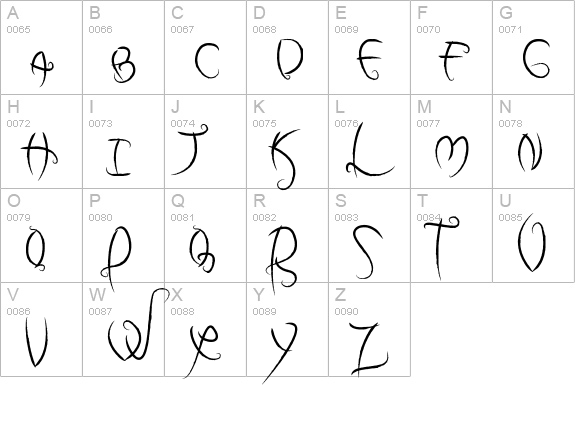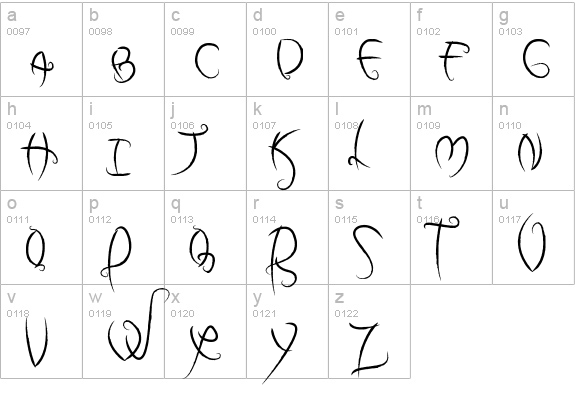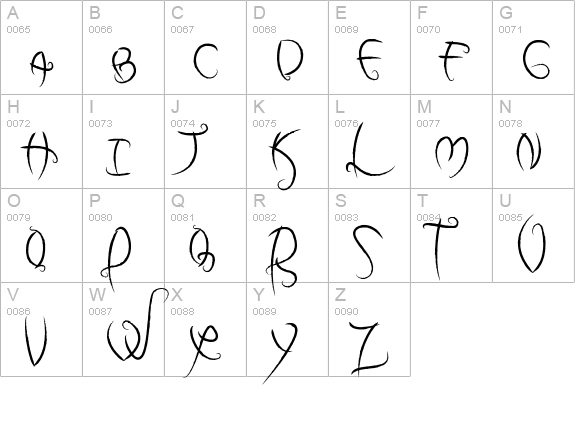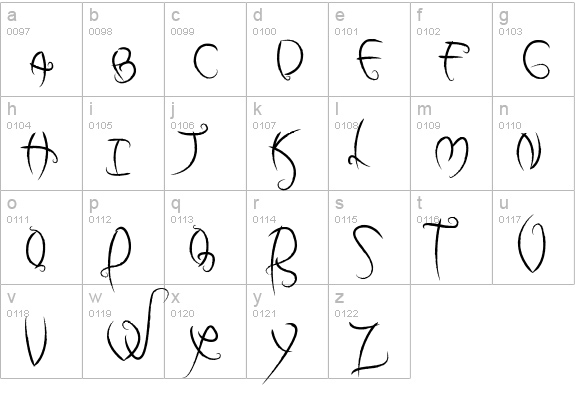
my dark halloween Font Details
Introducing the spine-chilling allure of our hauntingly beautiful dark Halloween font! This bewitching typeface is designed to send shivers down your spine, perfectly capturing the eerie essence of the Halloween season. With its intricate and mesmerizing design, it will add a touch of macabre sophistication to any Halloween-themed project. The free dark Halloween font is a true treat for all typography enthusiasts. Its unique and captivating style is reminiscent of ancient runes carved into weathered tombstones, evoking a sense of mystery and intrigue. Every letter is meticulously crafted, blending sharp edges with delicate curves, resulting in a spellbinding visual experience. Whether you're creating spine-tingling party invitations, crafting bone-chilling posters, or conjuring up wicked designs for your haunted house, this font is the perfect companion. Its versatility allows it to effortlessly transition from eerie elegance to ghoulishly grotesque, making it an essential tool for any Halloween design project. And the best part? This dark Halloween font is freely available to download at FontsMarket.com! As a generous gift to all our fellow Halloween enthusiasts, we want to ensure that everyone can embrace the darkness and bring their creative visions to life. So, unleash your inner darkness and grab this font to add an extra layer of spookiness to your Halloween designs. Don't miss out on this opportunity to possess a font that embodies the spirit of Halloween. Download our free dark Halloween font today from FontsMarket.com and let your imagination run wild. Embrace the shadows, explore the unknown, and create designs that will leave a lasting impression on all who dare to behold them. Happy haunting!